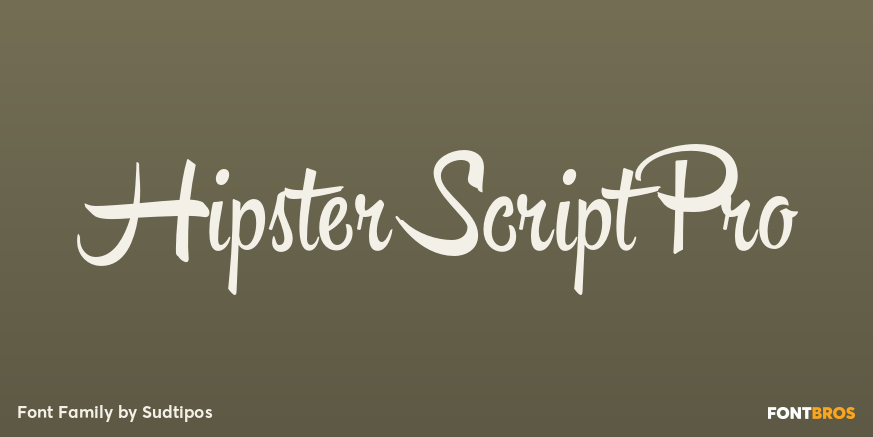
Hipster Script Pro
About Hipster Script Pro
Hipster Script is another of my habitual attempts at trying to reduce the divide between manual and digital. In this case, I try to articulate brush lettering, try to get the computer to emulate continuous painting. The process wasn\’t that different from…